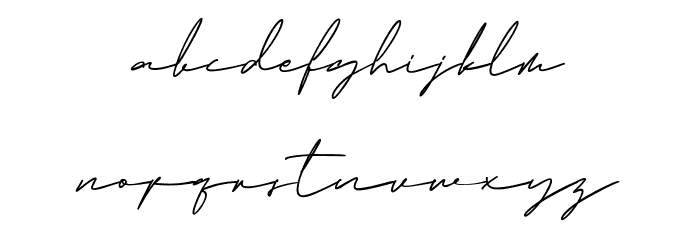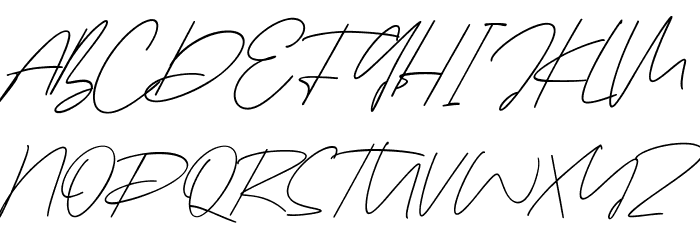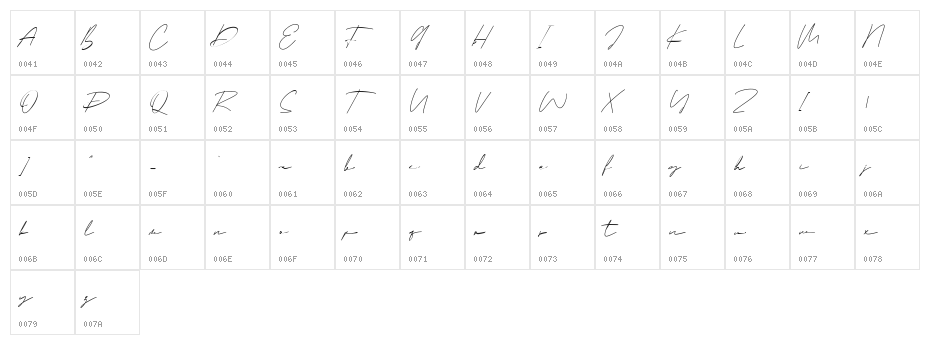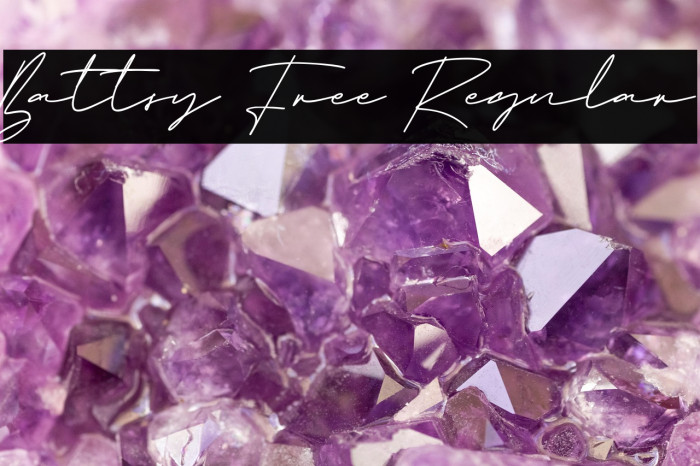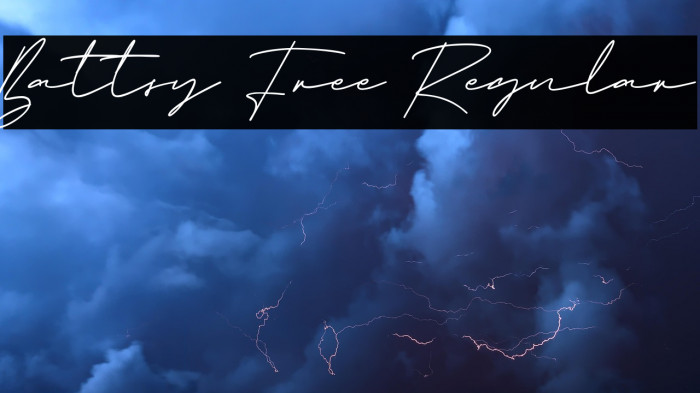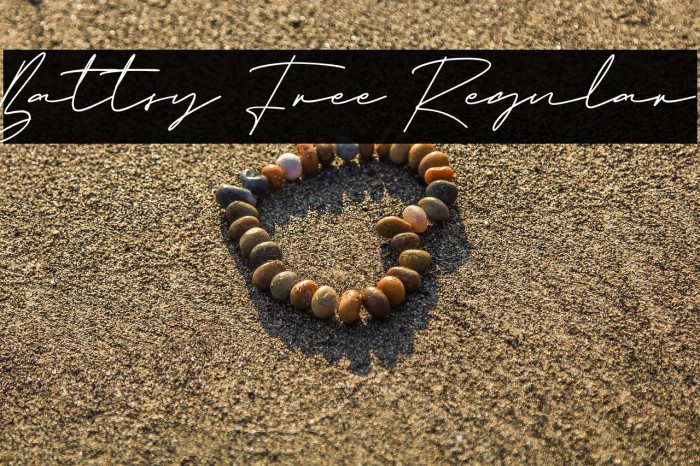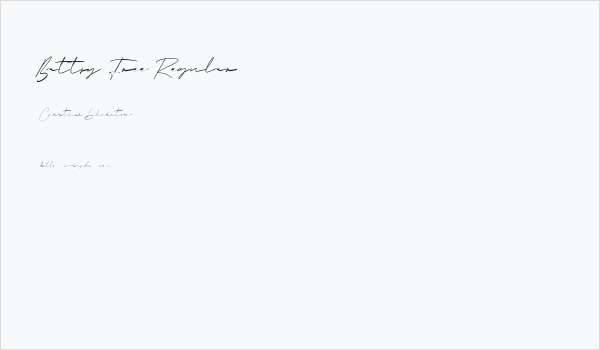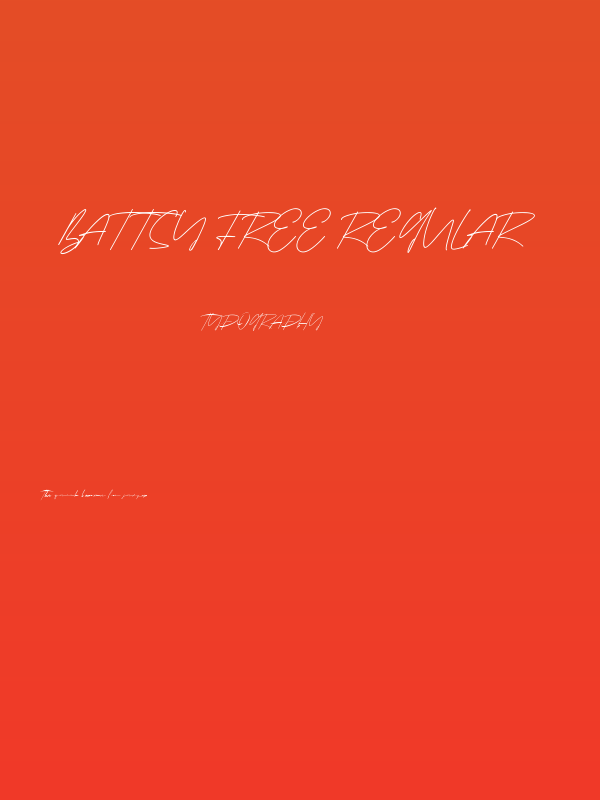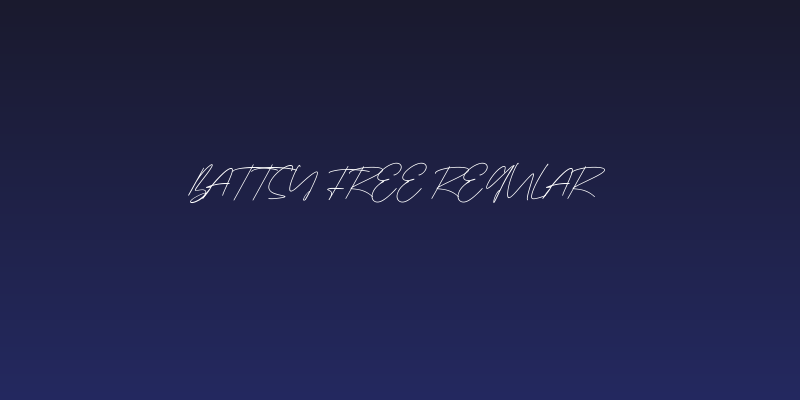
Battsy Free Regular Font
This font features a fluid and elegant script style, characterized by its smooth, flowing lines and a handwritten aesthetic. The letters are connected, creating a continuous and harmonious appearance. The strokes are thin and delicate, giving it a light and airy feel. This font exudes a sense of sophistication and grace, making it ideal for projects that require a personal touch. Its cursive nature adds a dynamic and lively quality, while maintaining readability. The overall design is modern yet timeless, suitable for a variety of creative applications.
A fluid, elegant script font with a handwritten aesthetic.
- Proposed Projects: Ideal for wedding invitations, greeting cards, personal branding, and elegant packaging designs.
- Use Case: Logos, Invitations, Personal Branding